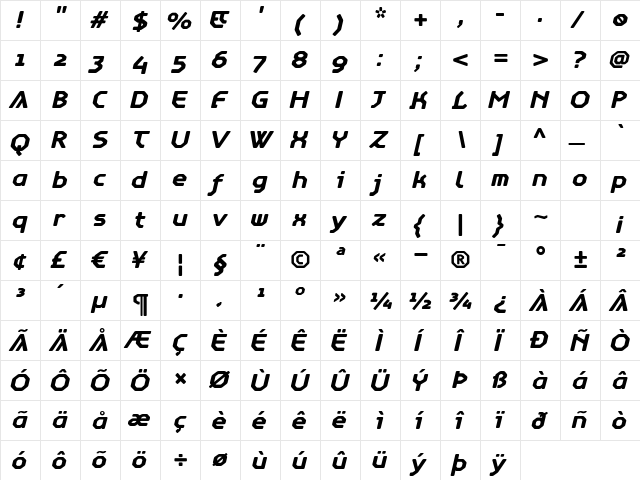
AlertBold Italic Regular
Design Context for AlertBold Italic Typeface
AlertBold Italic takes a measured approach to typography — its balanced proportions and neutral character make it a reliable workhorse for both digital and print work. The slanted form adds forward momentum and visual energy. Its bold stroke weight gives it real presence on the page.